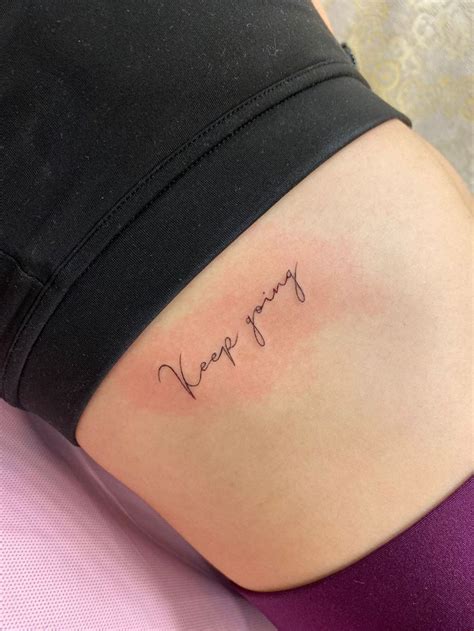
Keep Going Tattoo Fonts. Web picking a font for your next tattoo is a very important decision. Web whether you're obsessed with fingers tattoos, script tattoos, or old school block letters, here's the expert advice.
Web yes, there are free tattoo font generators online that allow you to preview how your text will look in different fonts. Web whether you're obsessed with fingers tattoos, script tattoos, or old school block letters, here's the expert advice. Web picking a font for your next tattoo is a very important decision. Fortunately, we have many unique tattoo font styles for men.
Fortunately, we have many unique tattoo font styles for men. Web yes, there are free tattoo font generators online that allow you to preview how your text will look in different fonts. Fortunately, we have many unique tattoo font styles for men. Web whether you're obsessed with fingers tattoos, script tattoos, or old school block letters, here's the expert advice. Web picking a font for your next tattoo is a very important decision.